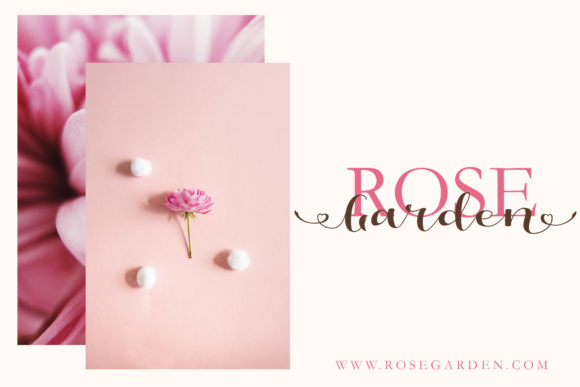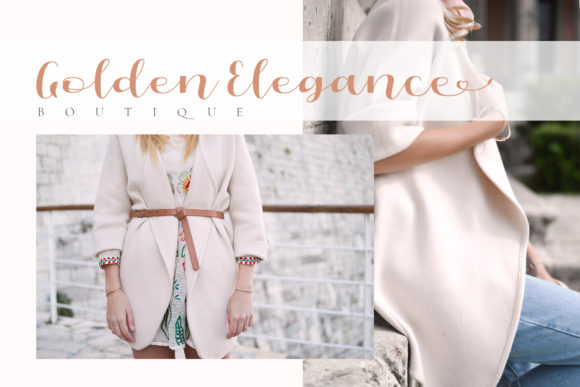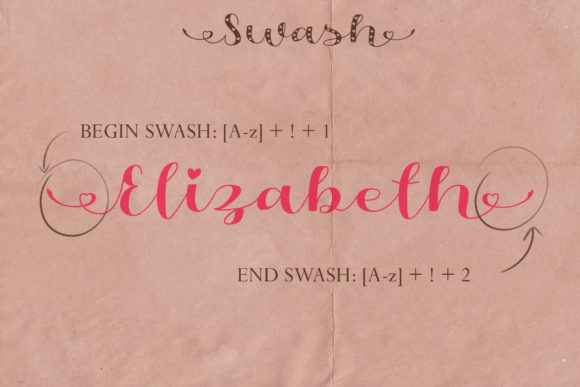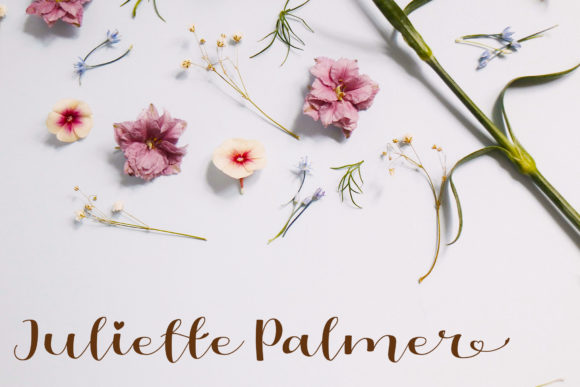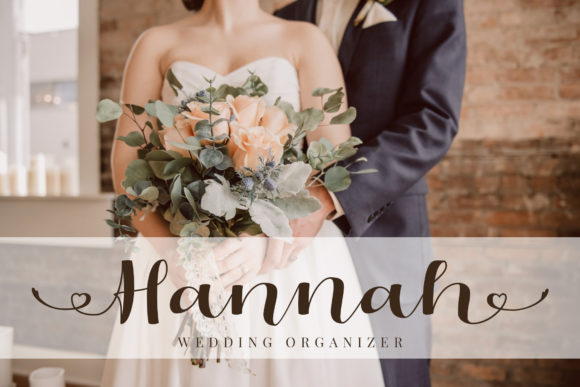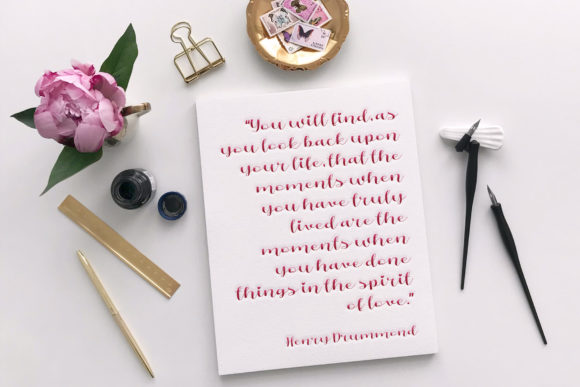
Introduction to Oliandre Font
Have you ever been working on a creative project, pouring your heart and soul into it, only to realize that the perfect font is missing? That’s a feeling many designers know all too well. But what if I told you that there’s a solution to this problem, a font that’s not only beautiful but also incredibly versatile? Meet Oliandre Font, the elegant script font that’s about to take your design projects to the next level.
With its contemporary atmosphere and impeccable form, Oliandre Font is the perfect addition to any design resource. Whether you’re working on a logo, a brochure, or a website, this font is sure to enhance the beauty of your project. And the best part? It’s available for free download, complete with a transparent background, making it easy to incorporate into your design.
As a designer, you know how valuable it is to have access to high-quality fonts that can elevate your work. That’s why Oliandre Font is a must-have in your design arsenal. Its balanced and varied design makes it perfect for a wide range of creative projects, from wedding invitations to product packaging. So why settle for an ordinary font when you can have Oliandre Font?
Key Features of Oliandre Font
- Unique, elegant design that adds a touch of sophistication to any project
- Perfect for use in graphic design, digital art, and other creative pursuits
Honest Review: Oliandre Font
As a designer, I’m always on the lookout for high-quality design resources that can elevate my creative projects. Recently, I stumbled upon the Oliandre Font, and I’m excited to share my honest review.
- Clean and elegant design aesthetic
- Perfect for a variety of creative projects, from branding to publishing
- Font weights may not be suitable for all design applications
- No extensive character set, which may limit its use for languages with complex scripts
Overall, the Oliandre Font is a solid addition to any designer’s toolkit. While it may have some limitations, its clean design and versatility make it a great choice for a variety of creative projects. With a free download option, it’s definitely worth checking out for designers on a budget.
Designing with Oliandre Font
To get the most out of the Oliandre Font, experiment with different font sizes, colors, and styles. You can also combine the font with other design elements to create a unique and eye-catching design.
The Oliandre Font is ideal for use in a variety of creative projects, including branding, marketing materials, and social media graphics. Its high-quality design and transparent background make it a popular choice among designers and creatives.